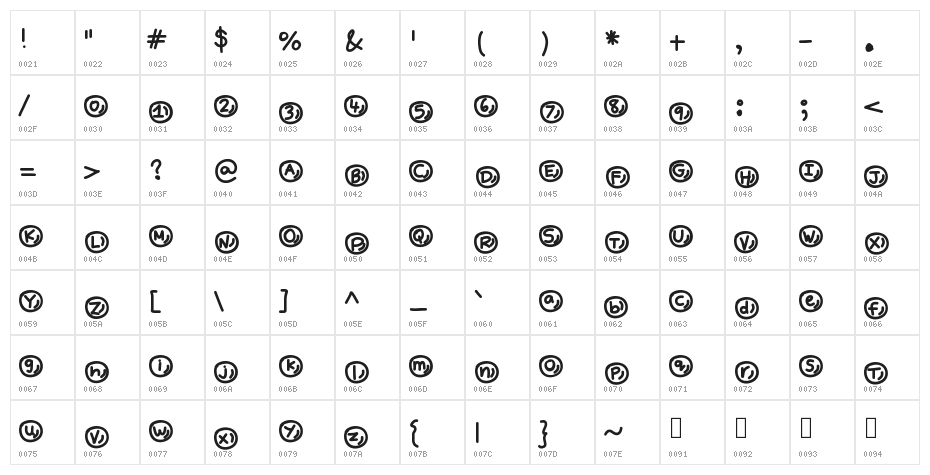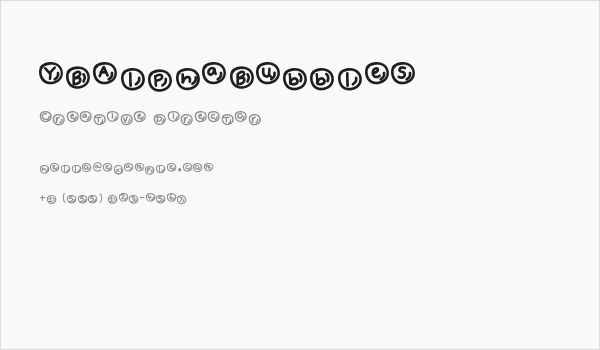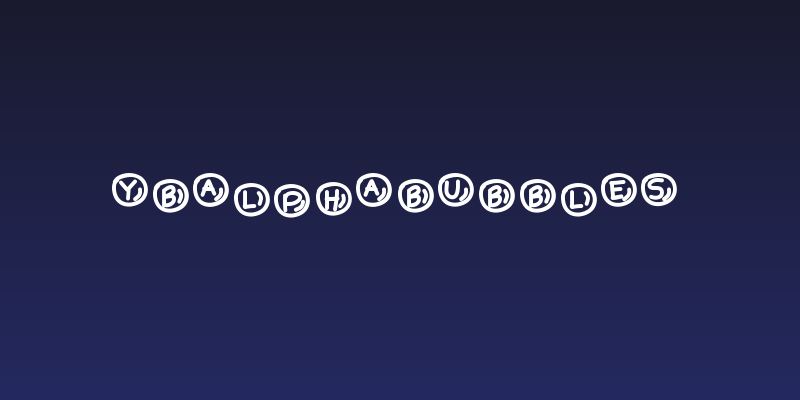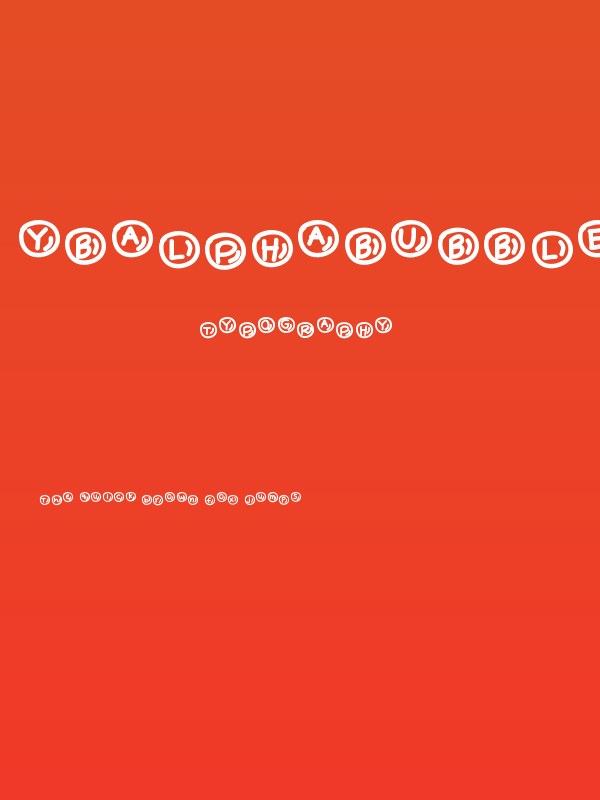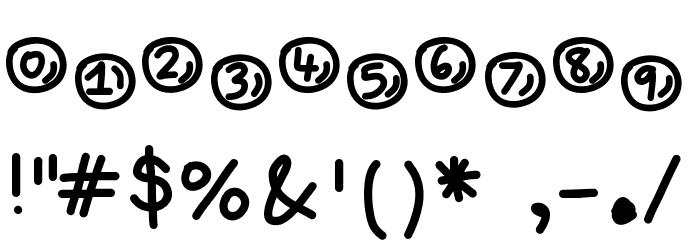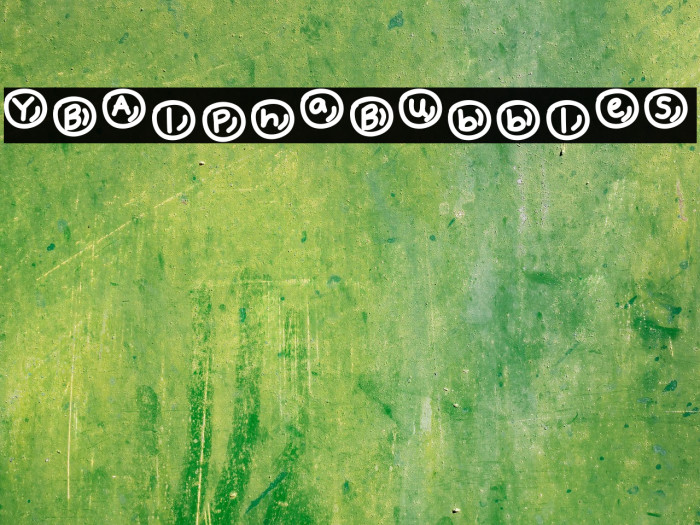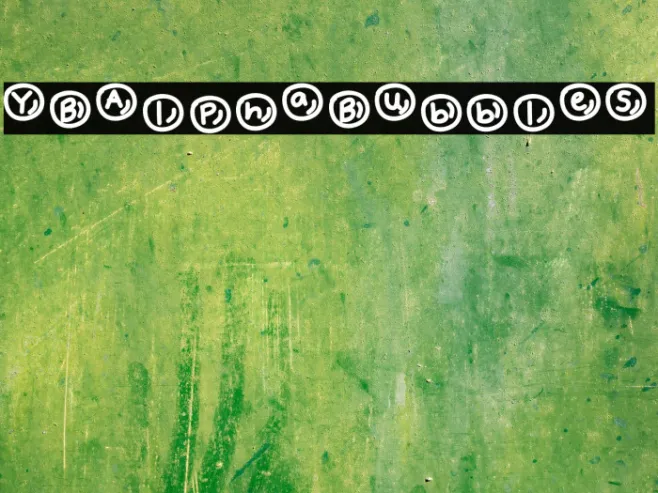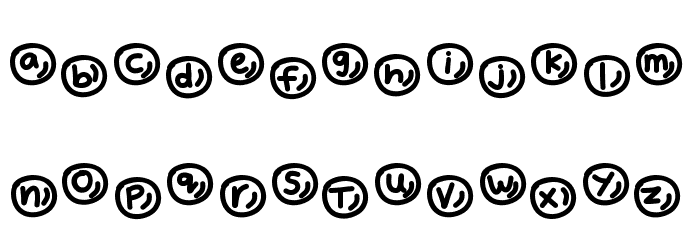
YBAlphaBubbles Font
YBAlphaBubbles Description
This playful and whimsical font features characters enclosed in circular bubbles, giving it a fun and approachable appearance. Each letter and number is bold and rounded, with a hand-drawn aesthetic that adds a personal touch. The uniformity of the circles creates a cohesive look, while the slight irregularities in the line thickness contribute to its charm. This font is ideal for projects that aim to convey a sense of fun, creativity, and informality. The inclusion of special characters ensures versatility in various design contexts.
| Proposed Projects | Ideal for children's books, playful branding, party invitations, and creative posters. |